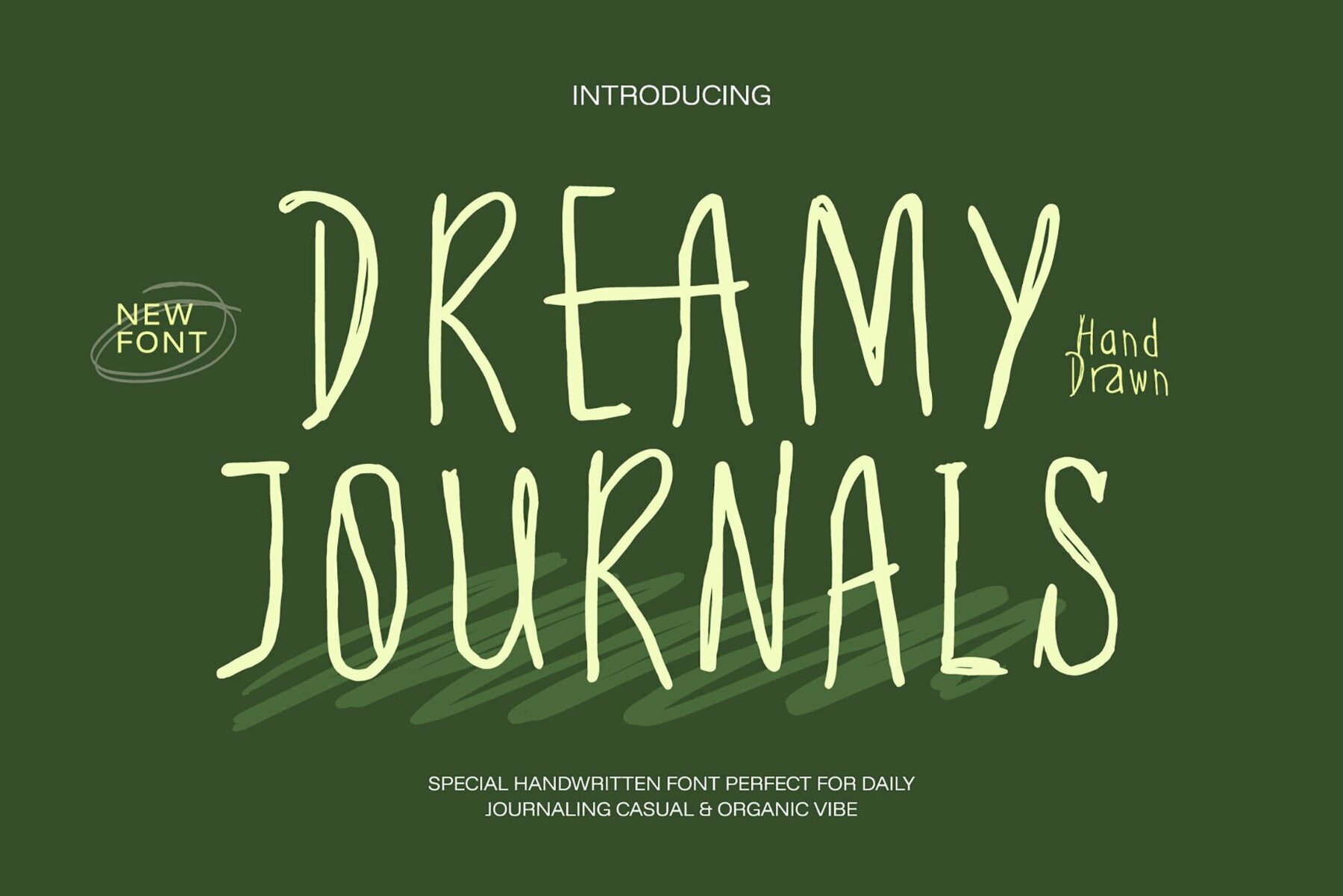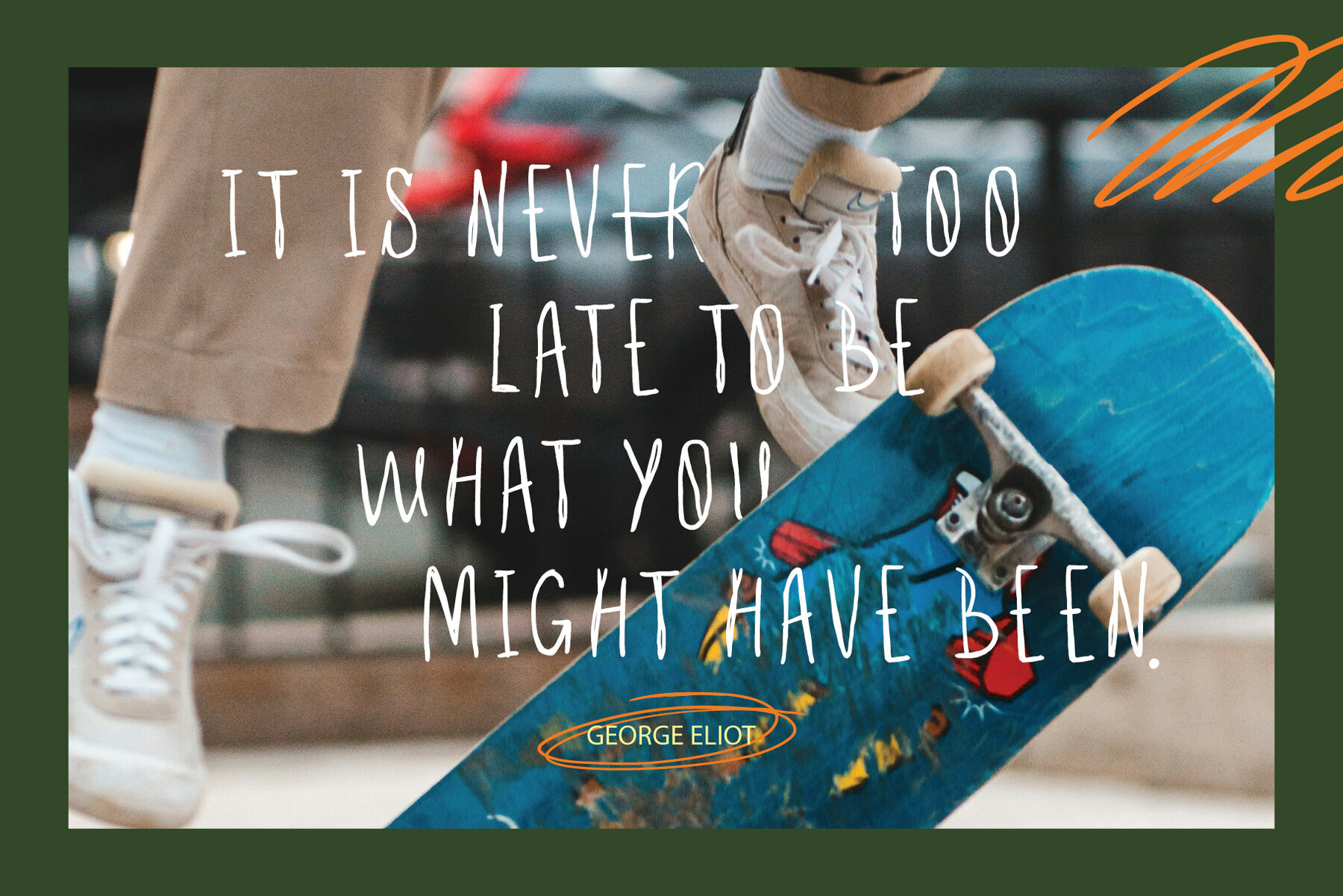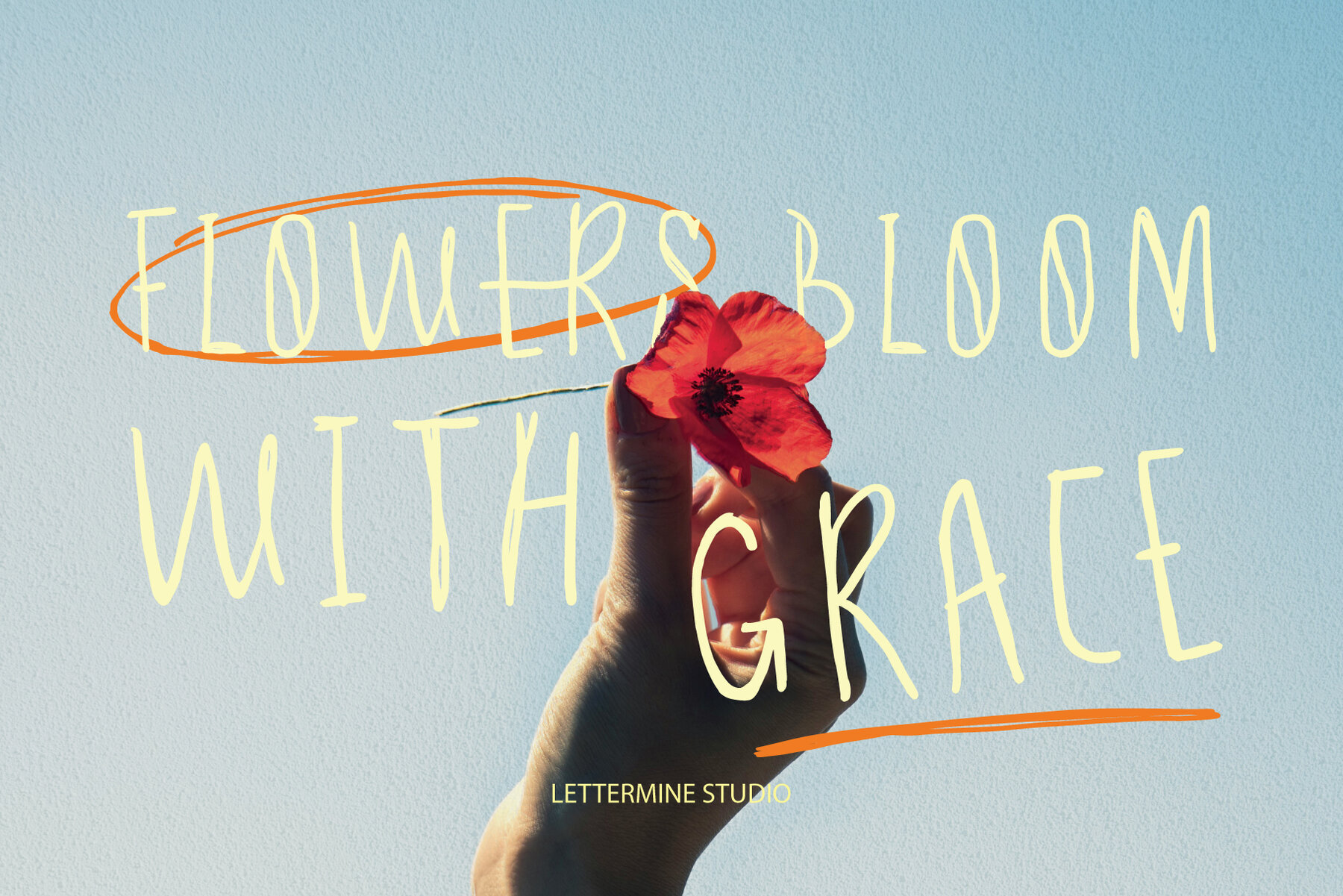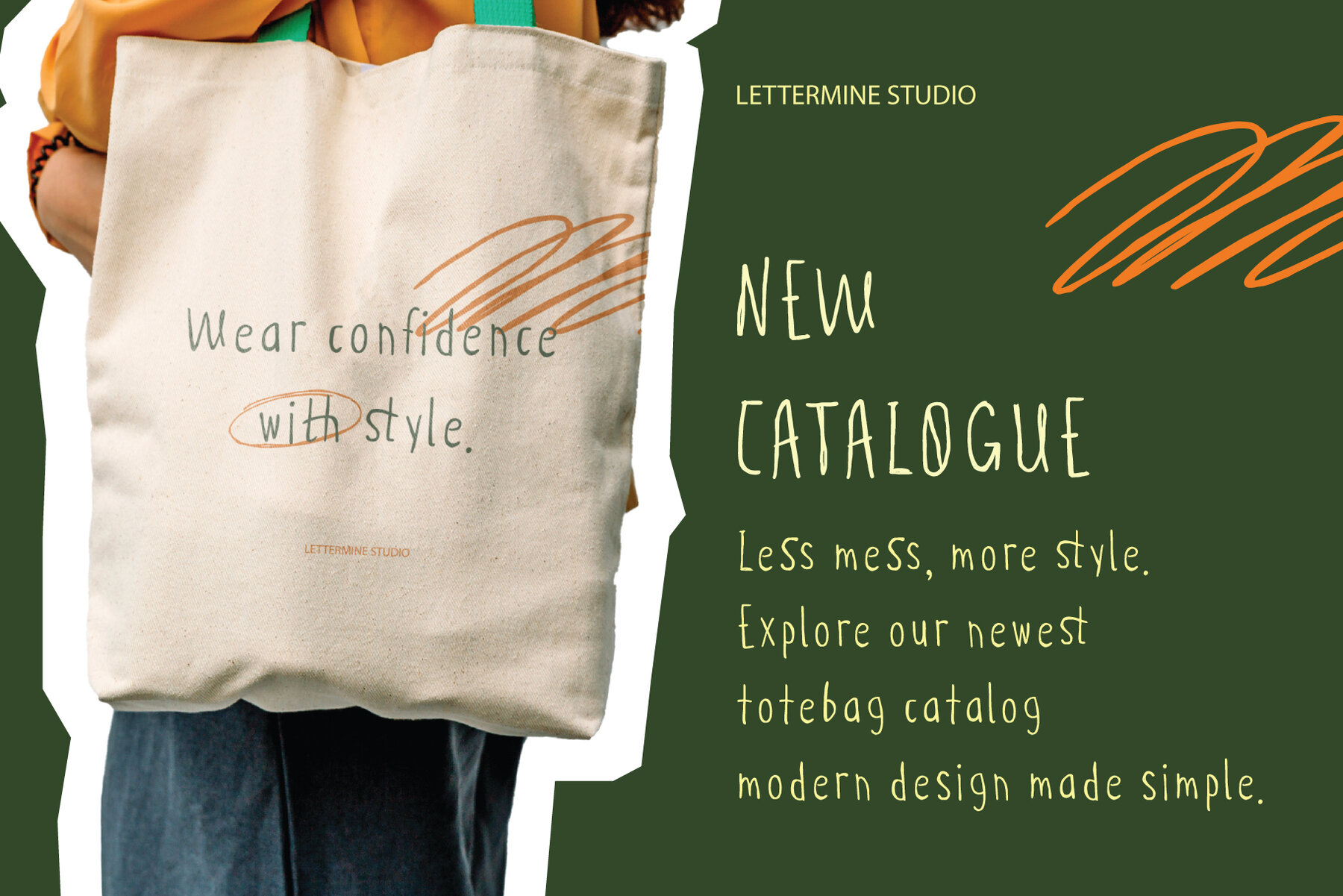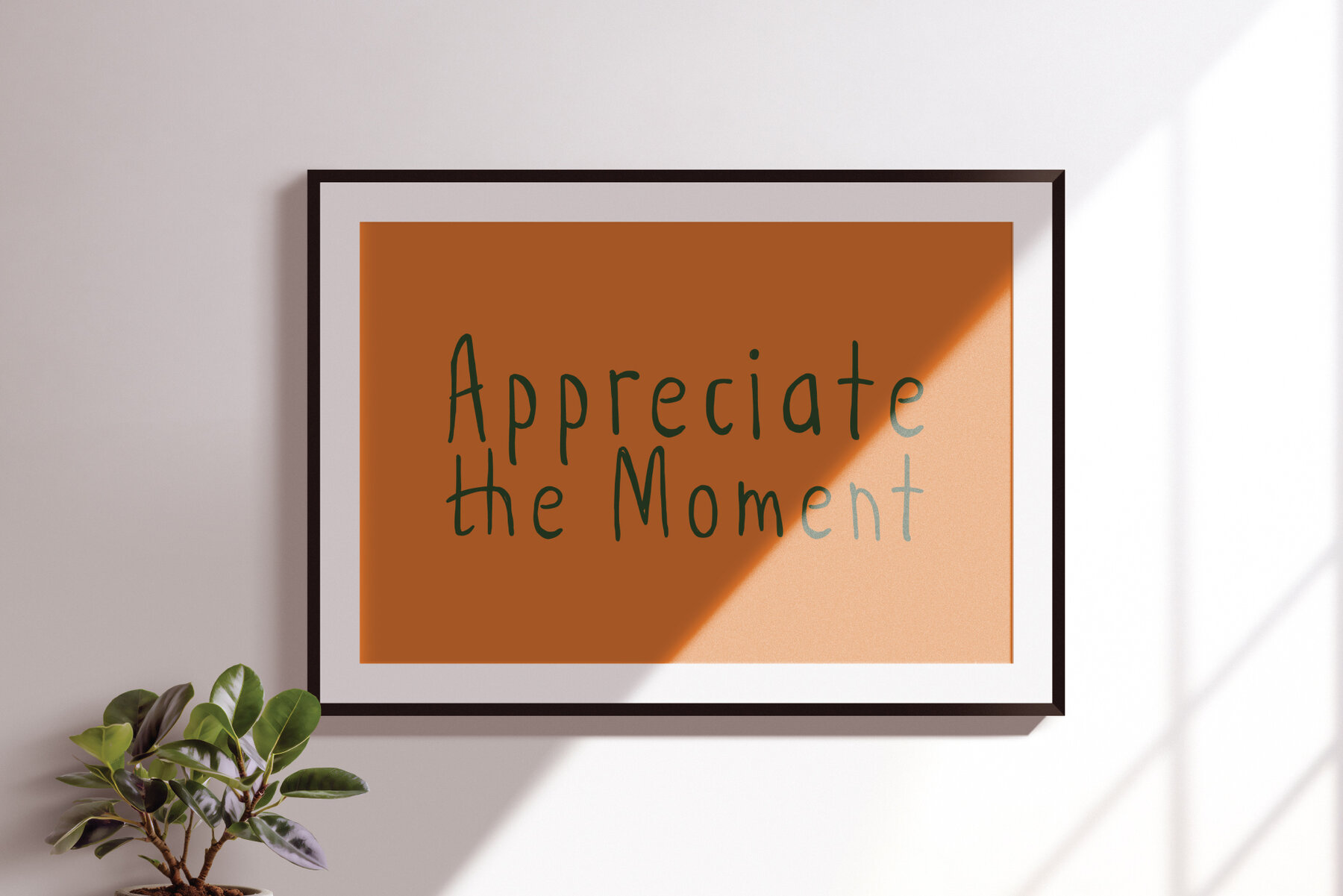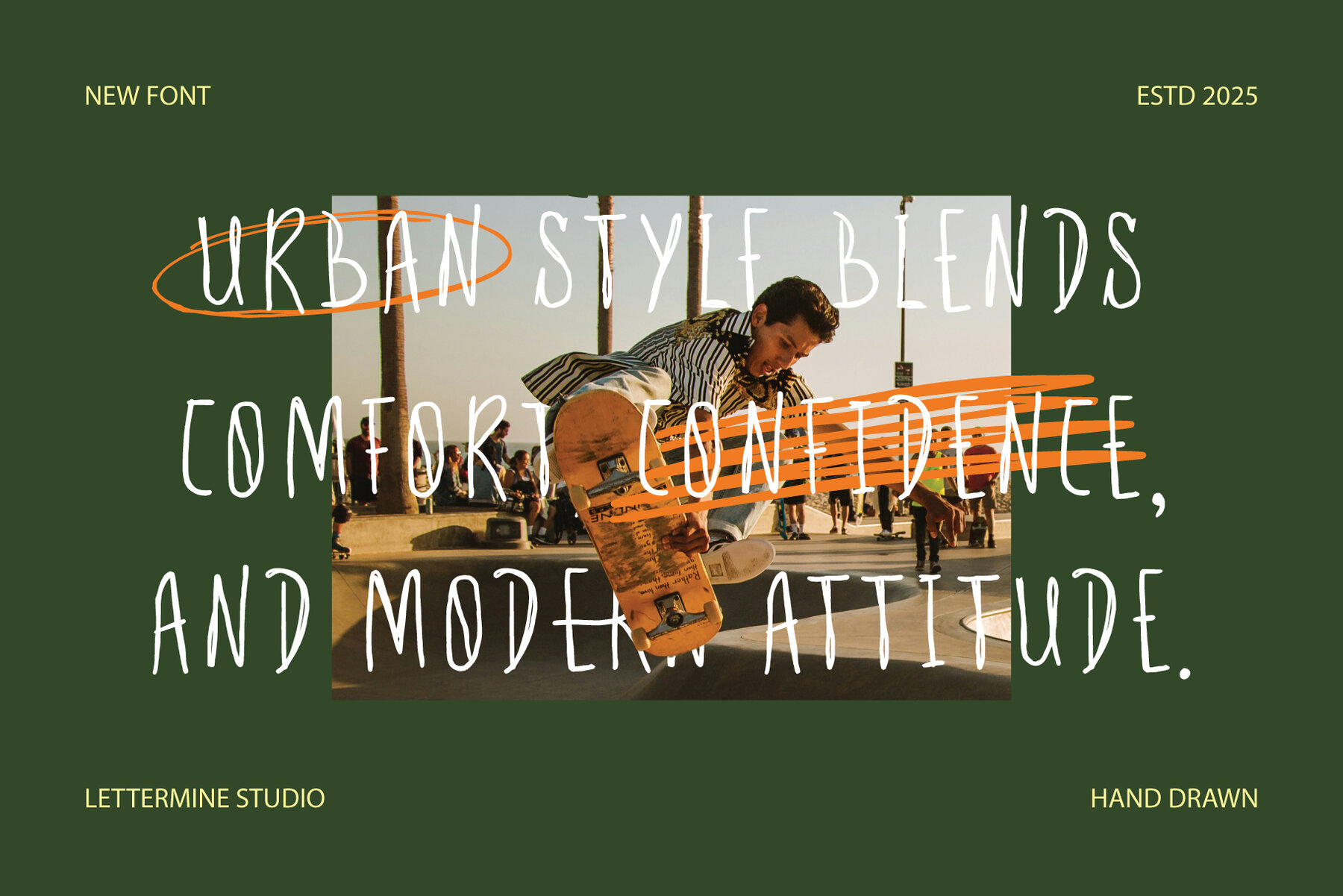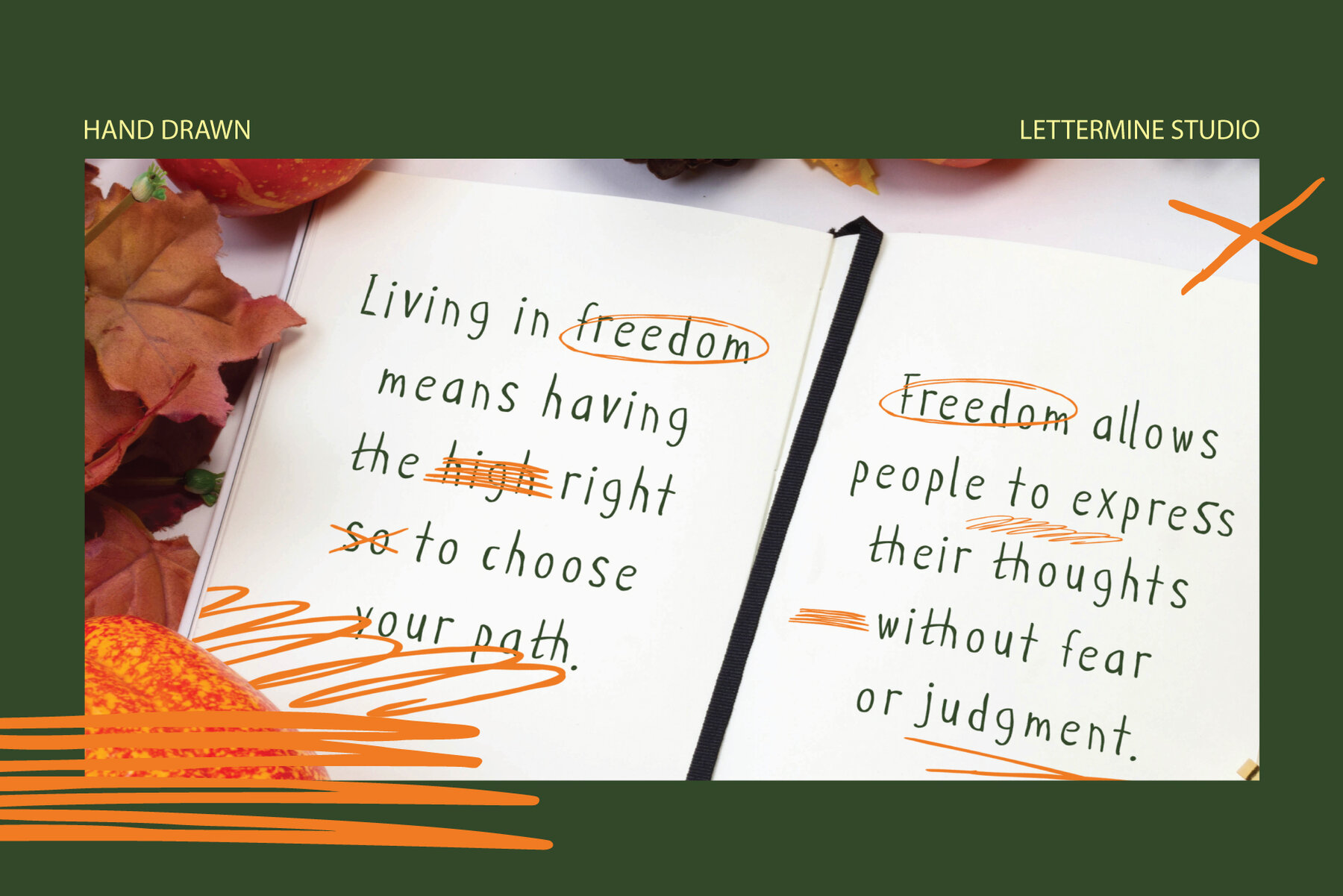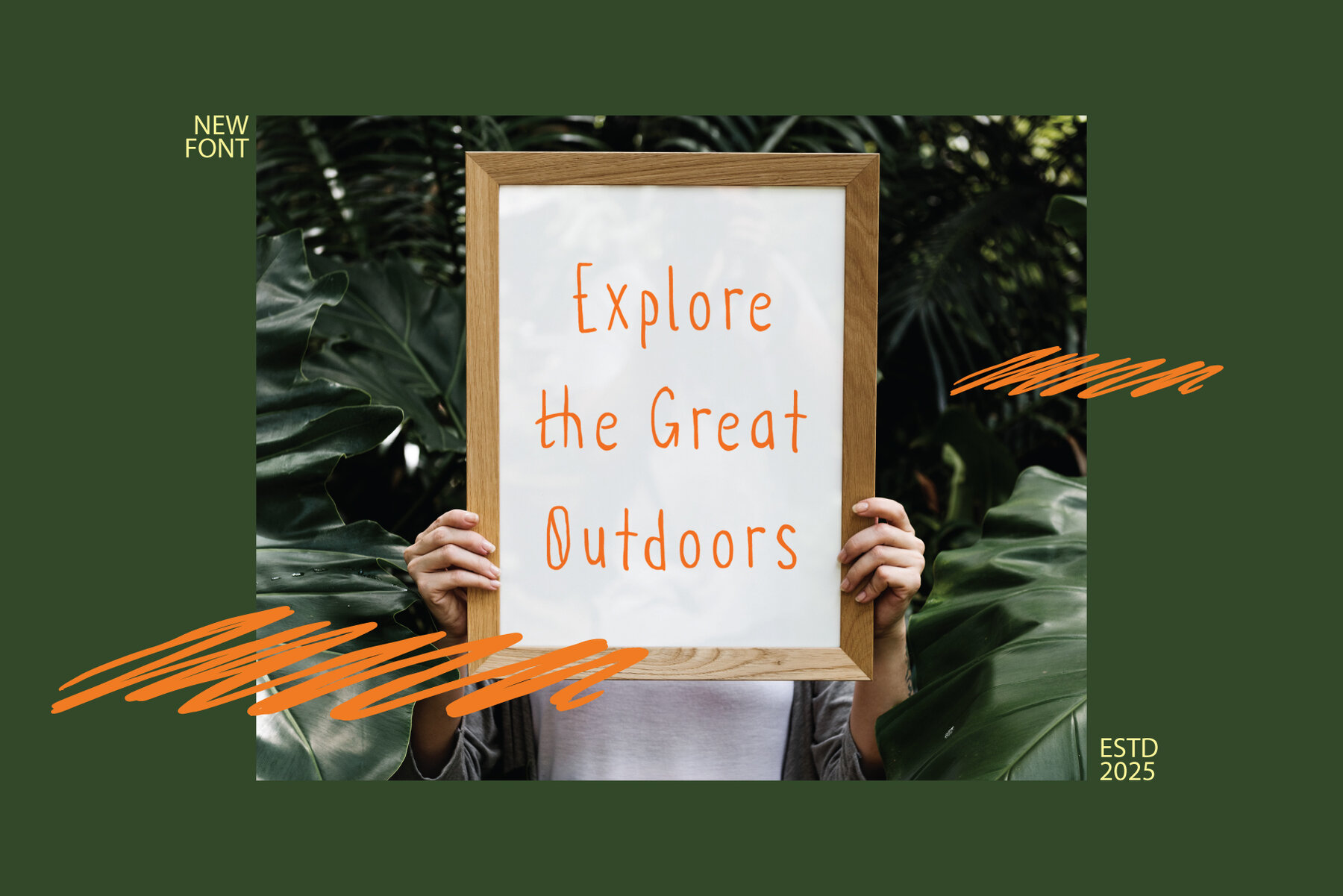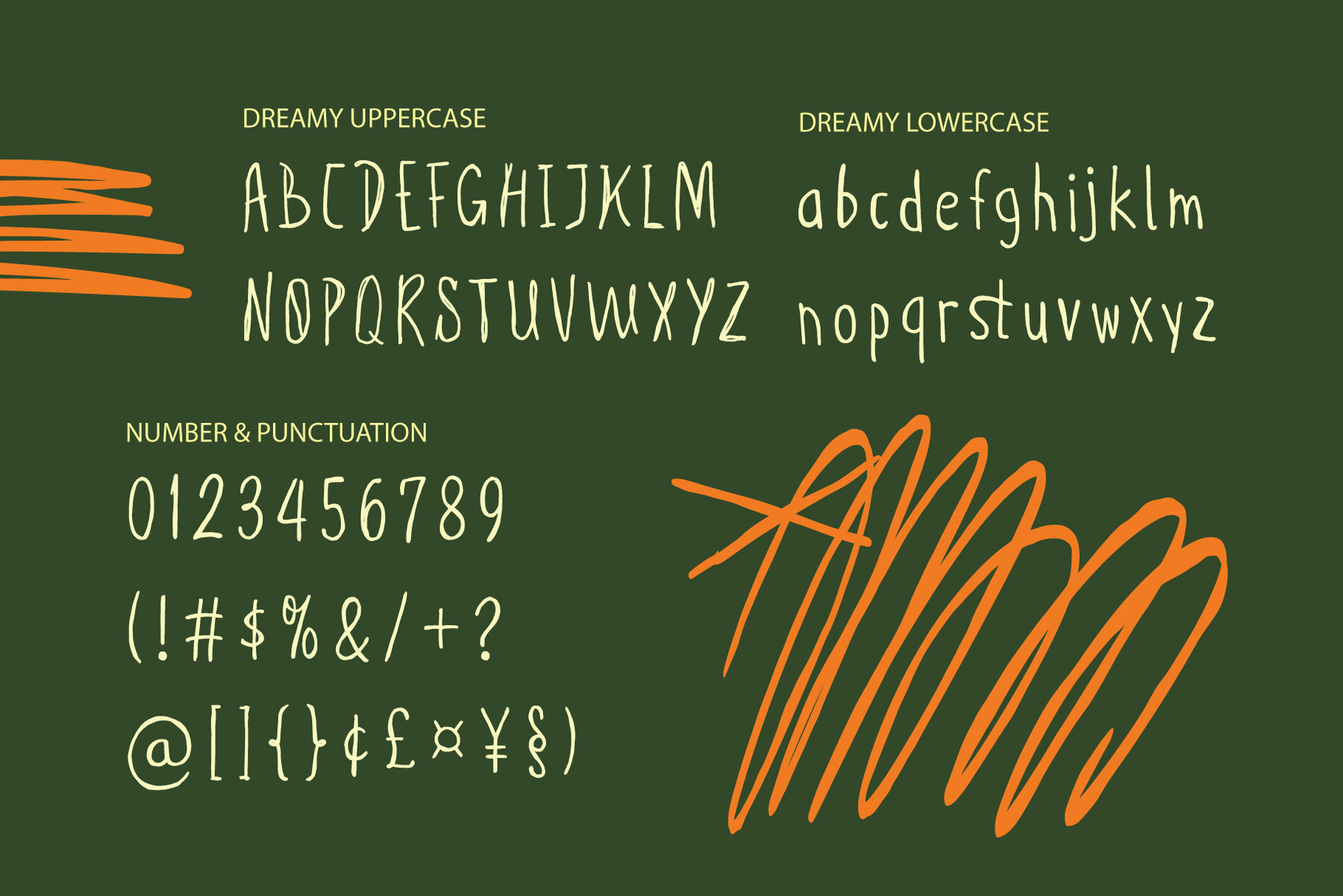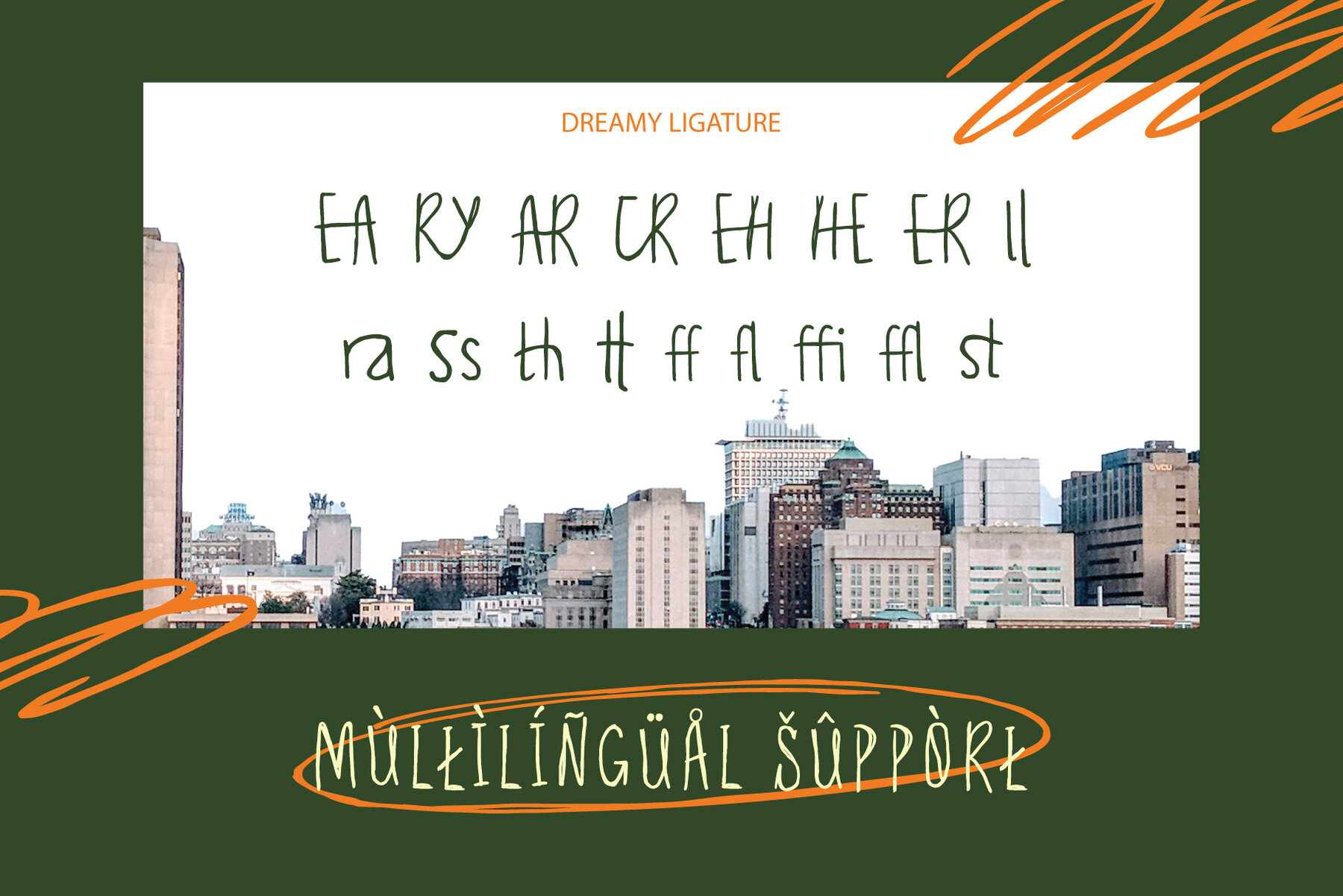
Dreamy Journal Font
Dreamy Journals
Dreamy Journals offers a casual and organic style, perfect for infusing your design projects with a touch of calm and creativity. Its unique, imperfect strokes lend a personal and human quality, making it ideal for journaling pages, planners, scrapbooking, self-care content, or any endeavor that seeks a warm, authentic aesthetic. This font is especially suited for wellness brands, digital notepads, or inspirational quote graphics. It features basic punctuation, multilingual characters, and is fully PUA encoded, ensuring compatibility with any design software. Note: Mockups, images, and illustrations used in previews are for presentation purposes only and are not included in the download.Dreamy Journals: Casual Handwritten Typeface